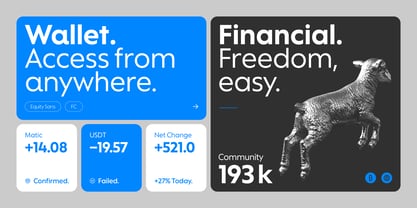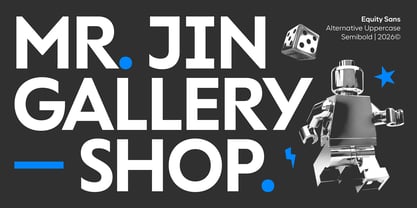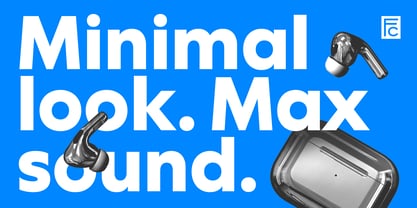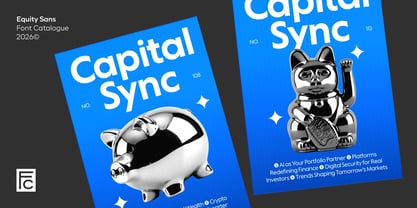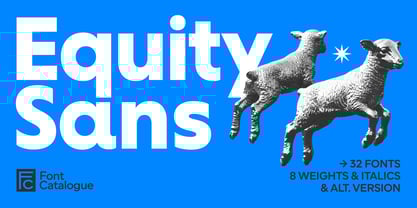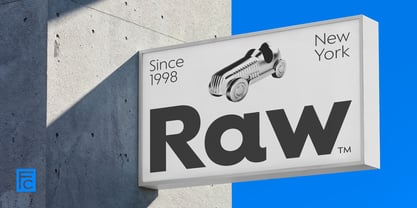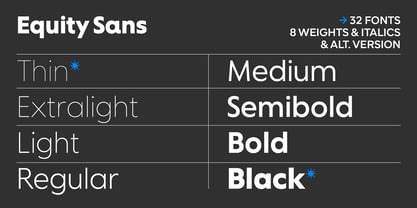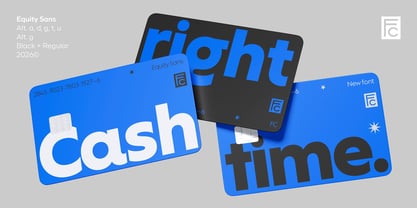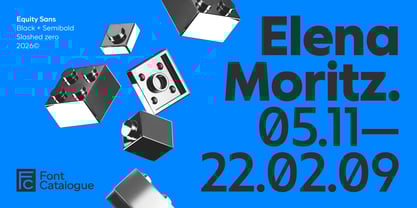
Equity Sans
by Font Catalogue
The Equity Sans Font Family was designed by Luciano Vergara, Jorge Cisterna, Daniel Hernández, Alexis Navarro and published by Font Catalogue. Equity Sans contains 32 styles and family package options.
Soft geometry, sharp presence. Equity Sans is a geometric sans with a rounded soul—literally. Built on pure circular forms, this typeface blends the crispness of modern design with a softness that feels remarkably approachable. It’s typography shaped by form, but guided by emotion. With rounded terminals, generous curves and open rhythm, it’s an ideal fit for brands that want to express warmth, care or well-being. From beauty products to lifestyle packaging, Equity Sans feels contemporary, clean and accessible. Yet it never loses structure—its eight weights and eight italics give it the flexibility to perform across complex systems, from logos and landing pages to editorial campaigns. It doesn’t shout, but it doesn’t go unnoticed either. Equity Sans has presence without aggression, and character without rigidity.
Designers: Luciano Vergara, Jorge Cisterna, Daniel Hernández, Alexis Navarro
Publisher: Font Catalogue
Foundry: Font Catalogue
Design Owner: Font Catalogue